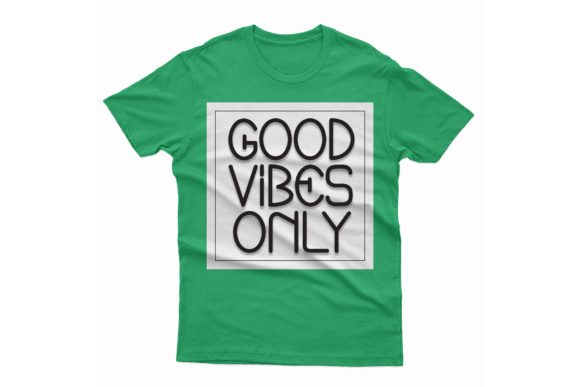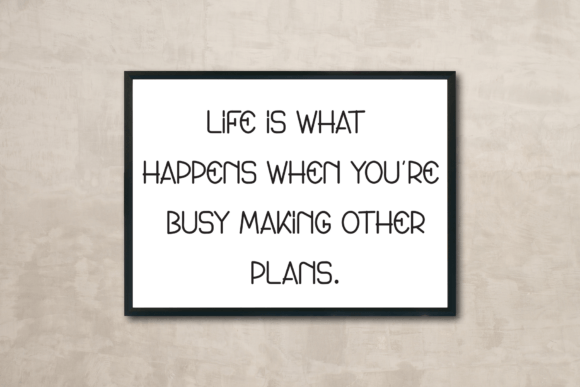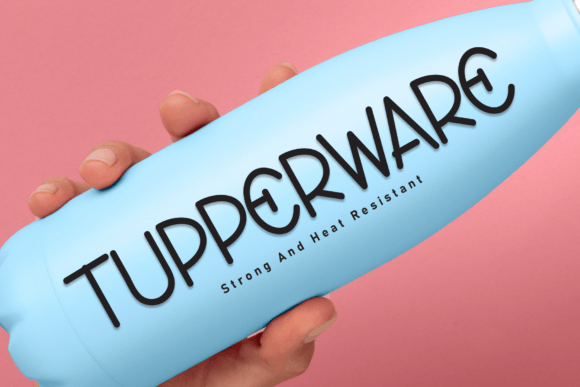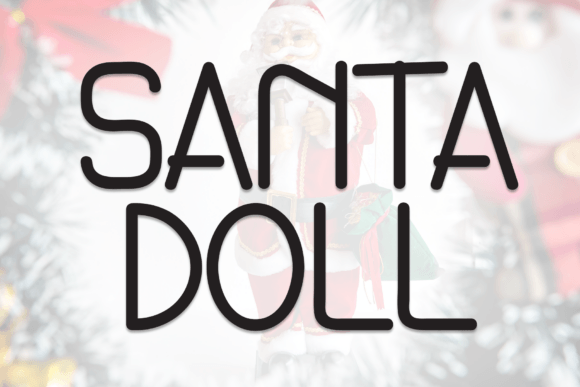
Introduction to Santa Doll Font
Presenting a charmingly warm and accessible handwriting-inspired typeface, our unique font perfects a casual, jovial flair.
Overflowing with personality, it strikes an ideal balance for composing wedding invites, greeting cards, or any design craving a playful twist Transform your creations into an unpretentious yet delightful visual journey with this font that seamlessly embodies a fun-filled essence.
Why Choose Santa Doll Font?